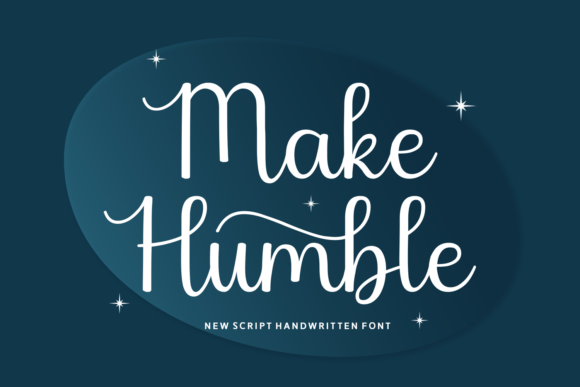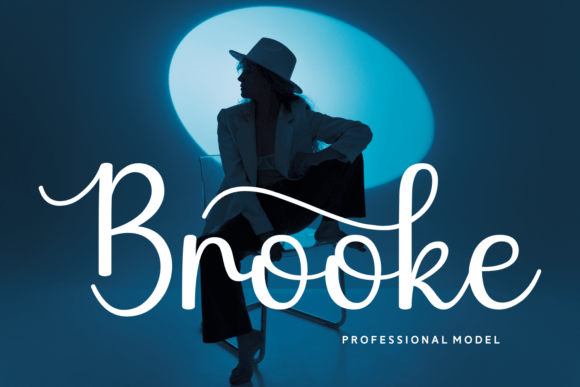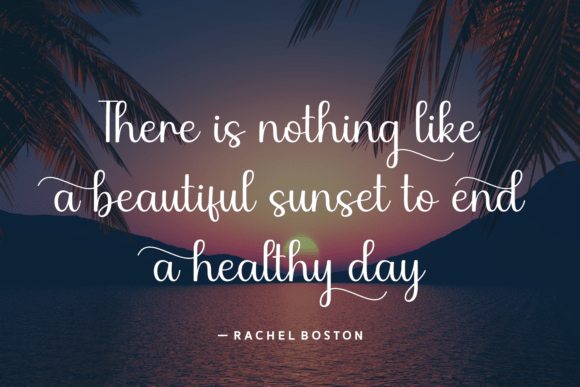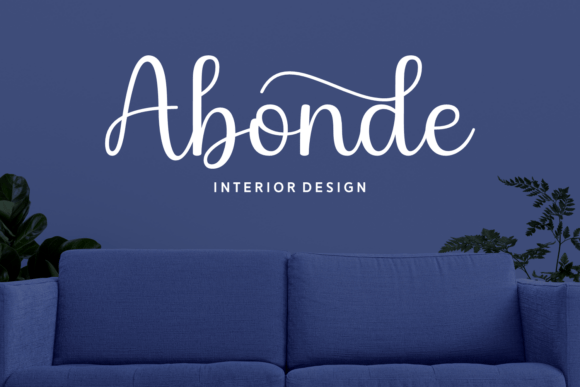
Make Humble Font: Elegant Handwritten Script for Branding & DIY
About the Make Humble Font
Add a touch of class to your work with the Make Humble Font, a truly exceptional typeface. Make Humble is a sweet and graceful handwritten script font that brings a touch of sincerity to your designs. With tall ascenders, soft curves, and a touch of whimsy in its swashes, this font is perfect for inspirational quotes, greeting cards, personal branding, and spiritual or wellness-themed content. Make Humble delivers a clean, heartfelt handwritten aesthetic that feels both personal and polished.
Make Humble’s delicate nature makes it ideal for projects requiring a touch of gentle elegance, such as wedding invitations, logos for artisanal businesses, or packaging for beauty products. It excels in short text applications where its individual letterforms can shine, like headings, short quotes, or watermarks. However, its handwritten style is less suitable for body text or lengthy paragraphs, where readability suffers.
Consider pairing Make Humble with a clean sans-serif like Lato for a balanced contrast, or a classic serif like Garamond for a more traditional feel. For a more modern approach, a geometric sans-serif such as Futura could complement its organic curves.
The font’s overall personality is friendly, sincere, and approachable. Its soft curves and gentle swashes communicate warmth and trustworthiness, making it a suitable choice for brands focusing on authenticity and personal connection.
Make Humble Font Usage Examples
Make Humble Font Example